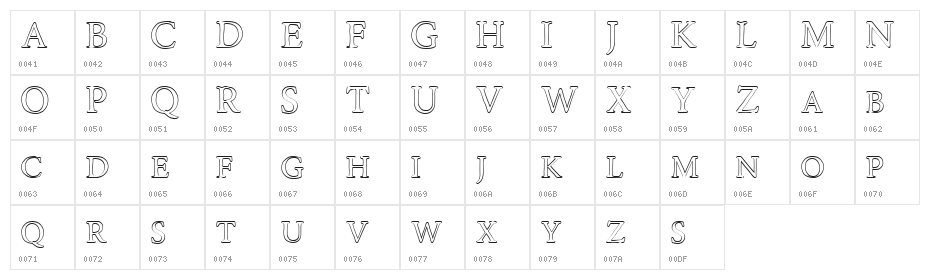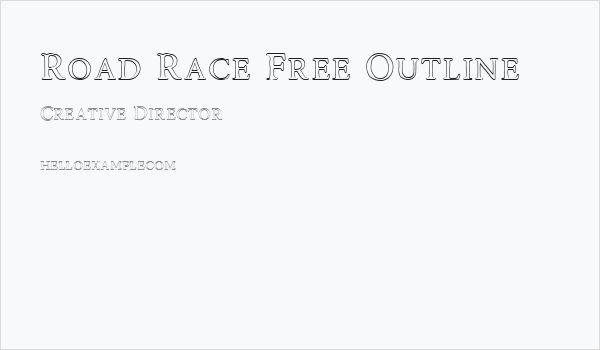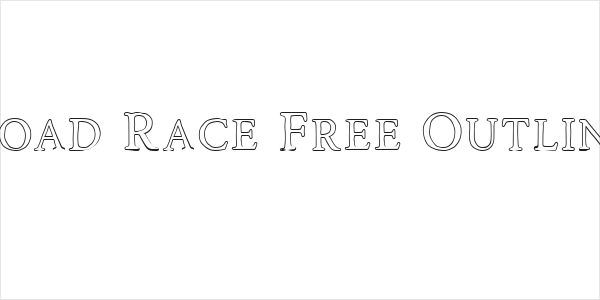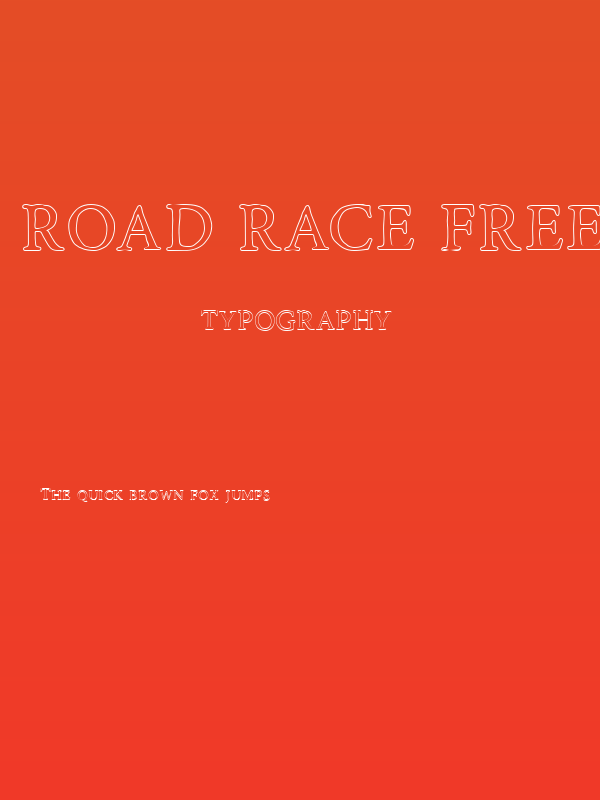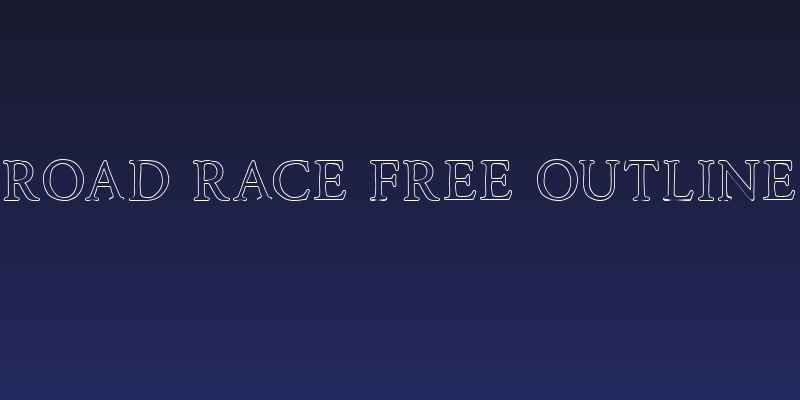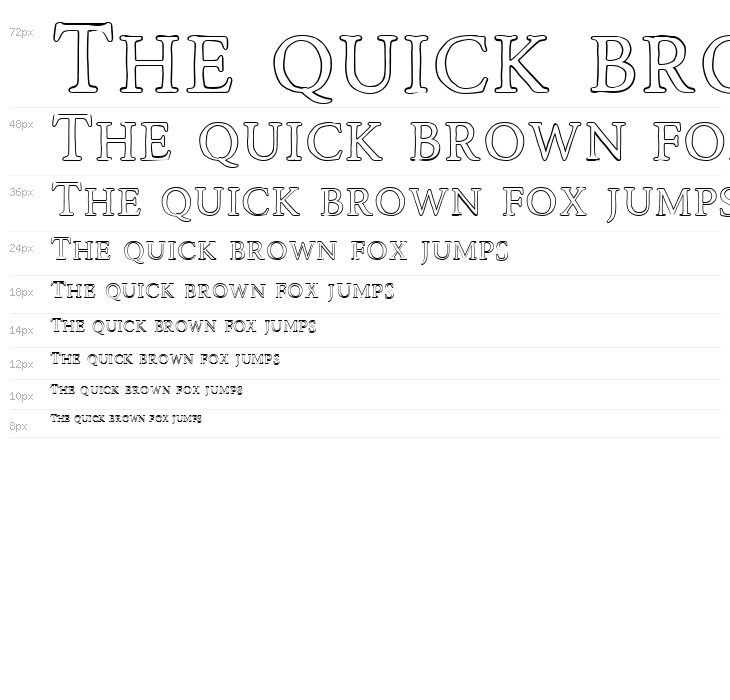
Road Race Free Outline Font
Road Race Free Outline Description
This font features a bold, outlined style that gives it a distinctive and eye-catching appearance. The letters are uppercase, with a consistent stroke width that forms a clear and readable outline. The design is geometric and structured, with sharp angles and clean lines that convey a sense of modernity and precision. The spacing between characters is normal, allowing for easy readability while maintaining a cohesive look. This font is ideal for projects that require a strong visual impact, such as headlines, posters, or branding materials. Its outlined nature adds a layer of depth and interest, making it suitable for creative and dynamic designs.
| Proposed Projects | Ideal for headlines, posters, branding, and creative designs requiring strong visual impact. |